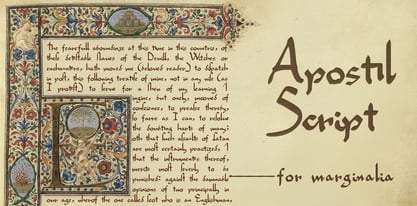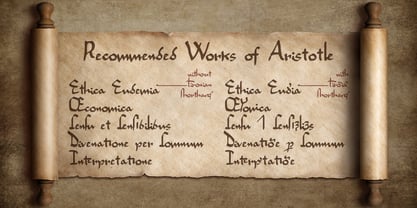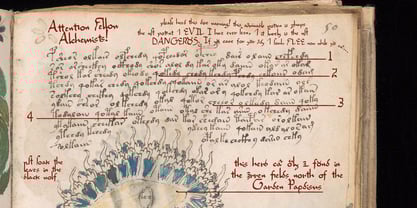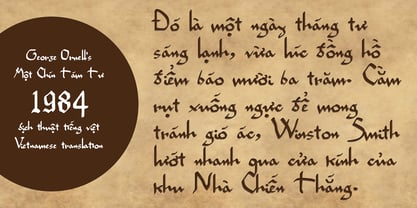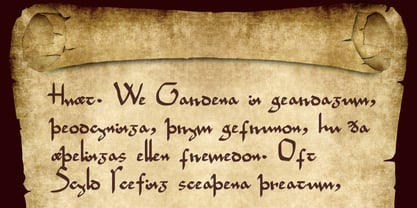
Apostil Script
The Apostil Script Font Family was designed by Gregory Stevens and published by Second Circle Font Foundry. Apostil Script contains 1 styles. More about this family
An apostil is a marginal note: something hand-written, and usually added after-the-fact. Apostils may be scholarly commentary written in the margins of ancient religious folios, or perhaps hastily-scrawled warnings added to the pages of a magical grimoire. Apostils written on ancient manuscripts often look cramped or rushed, and may be written in shorthand; they may have noticeably different handwriting, or even a different color ink, than the main text on the page.
This is why we created Apostil Script. Apostil Script is the handwriting of cryptic notes hastily scratched into the margins, adding mystery and intrigue to your world’s scrolls and other artifacts. The main lettering of Apostil Script is based on hand-written notes found in the margins of work by Marsilio Ficino, written in the 1400’s. However, we have also added several optional features that you can use to add to the cryptic and ancient feeling of your text.
The Apostil Script font is a perfect way to enhance props, costumes, and accessories associated with ancient magical texts and the wisdom of elder civilizations. Whether you are cosplaying Edward Kelley at an upcoming convention, or creating clues for adventurers to find in your next RPG campaign, let Apostil Script inspire you.
DESIGN NOTES
1. The strokes of the lettering resemble a traditional flat nib ink pen, but they also look cramped and slightly rushed. Imagine a scribe with an elegant pen, but rushing to add notes into the margin of a grimoire!
2. The lettering supports Old English and accented characters allowing it to support Swedish, French, Spanish, Vietnamese, and a wide range of other languages.
3. The letters "G" and "S" are converted to more archaic letter forms according to standard contextual rules, using special ligatures.
4. Tironian Shorthand characters, used by monks throughout the middle ages, are implemented as optional (discretionary) ligatures
5. The Insular letter forms used in Ireland, Scotland, and England are available as contextual alternates, and can be selected individually to add a "medieval feel" to your writing
OPENTYPE FEATURES
The following features are implemented using the standard ligatures (liga) feature: standard Latin ligatures, special legibility-enhancing ligatures, archaic Latin ligatures, and the ligature rules that transform special cases of S to Long S, and G to Insular G, according to standard practice in the 13th to 16th centuries.
The following features are implemented using the discretionary ligatures (dlig) feature: Tironian shorthand characters, swash letter forms for initial capitals.
The following features are implemented using the stylistic alternates (salt) feature: optional Insular letter forms.